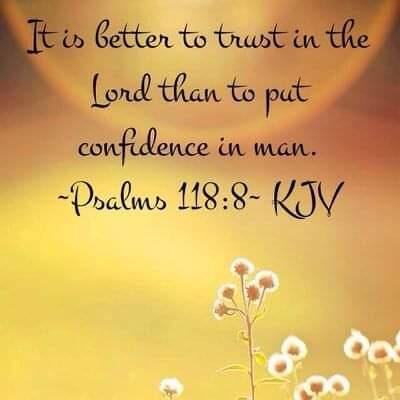
Martin is a fun and simple handwritten font with a very authentic vibe. It will turn any design project into an amazing piece of art. This font is …
Marthin Font